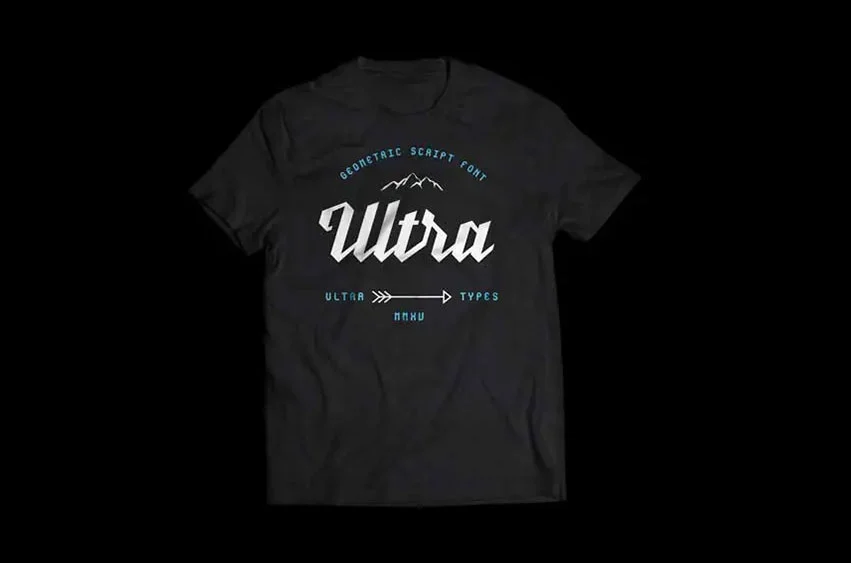
UT Nickel Typeface Font is a geometric script font inspired by the Milwaukee Tool Company logo. This complete typeface includes accents, punctuation, mathematic symbols etc. It also contains a few alternates, contextual alternates for some disturbing letters such as r,s,x,z and a few ligatures too for all the problematic pairs.